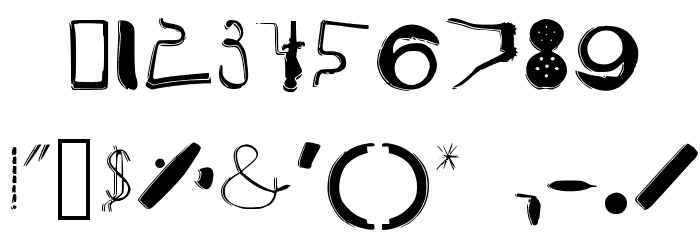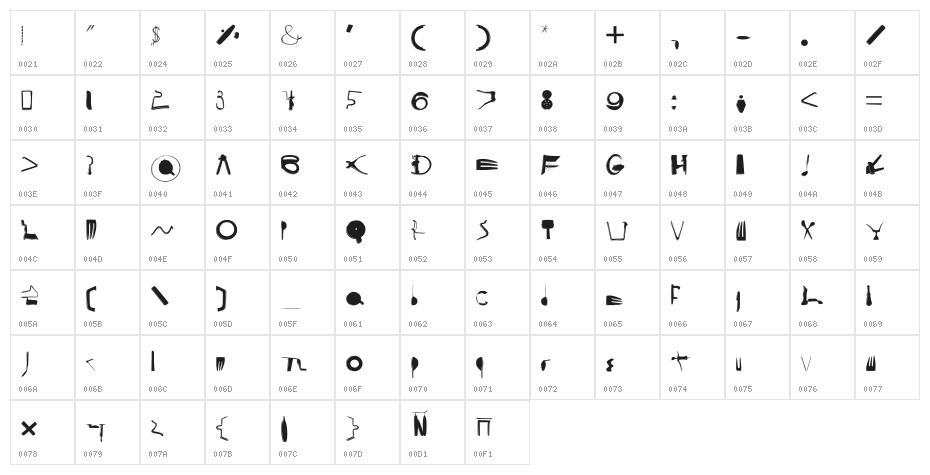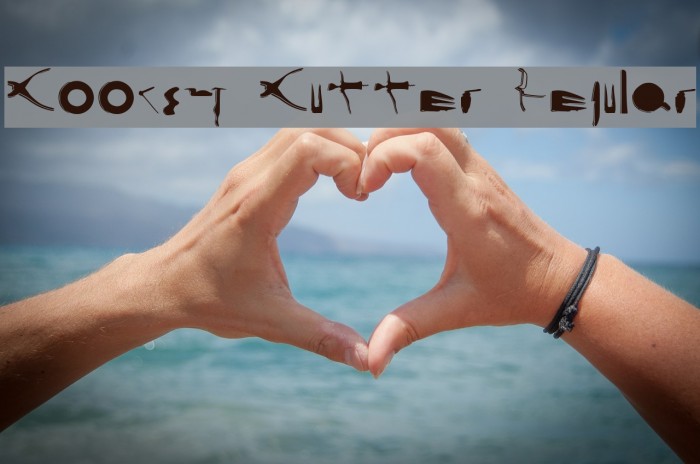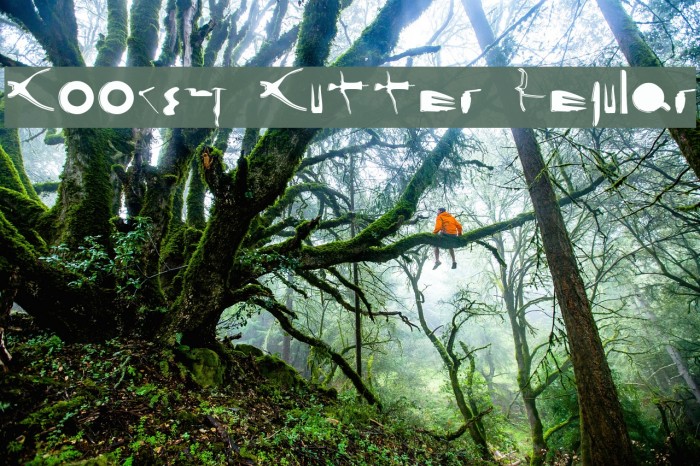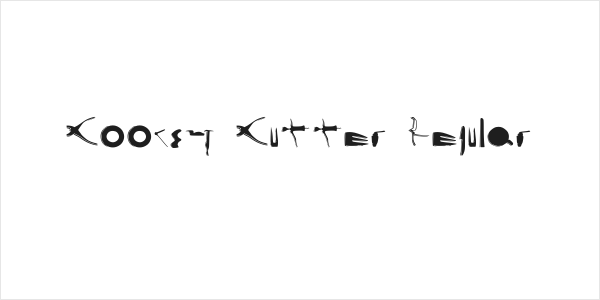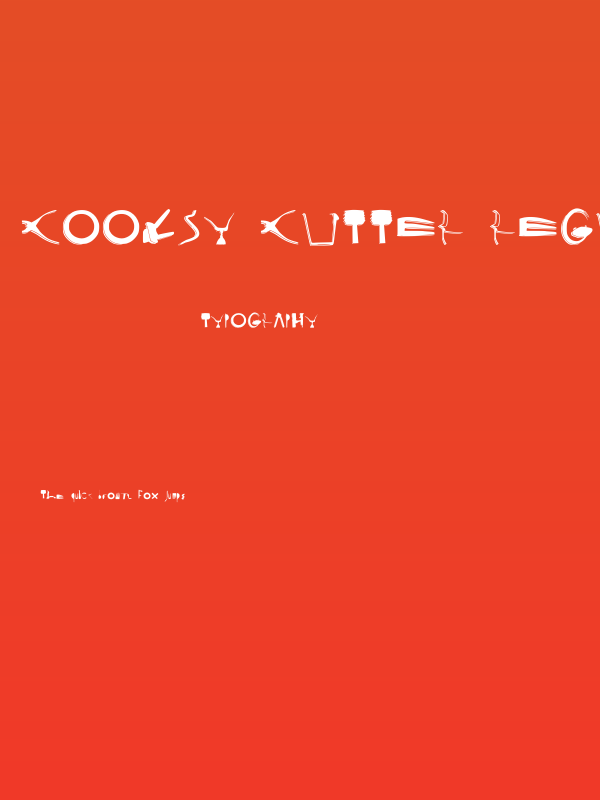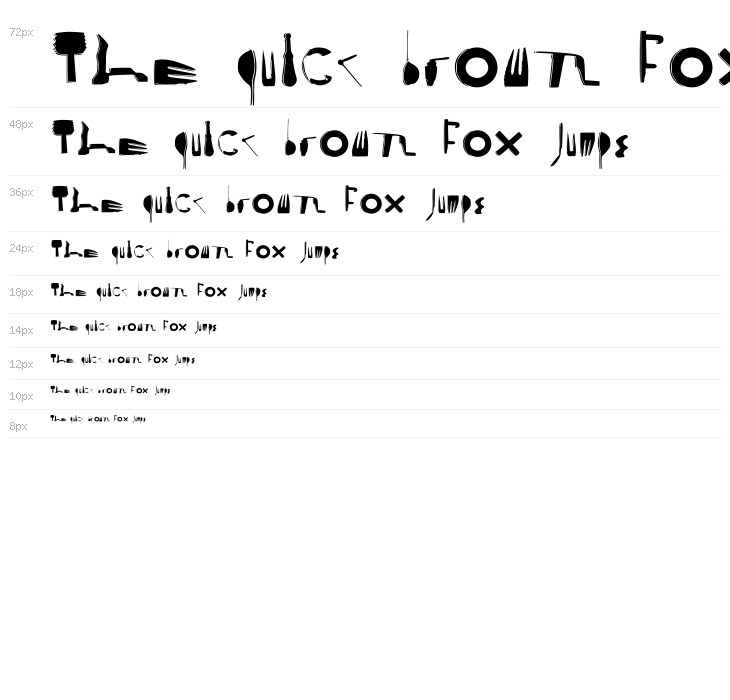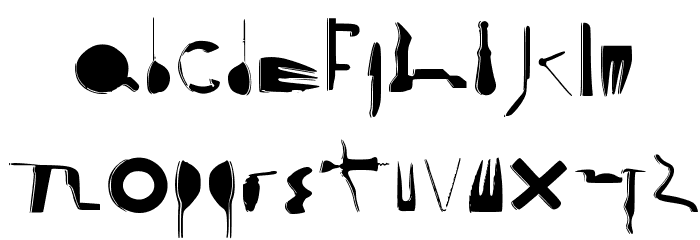
Cooksy Cutter Regular Font
Cooksy Cutter Regular Description
This font is a playful and creative design that incorporates kitchen utensils and cooking elements into each character. The letters are crafted with a unique blend of shapes resembling forks, knives, spoons, and other culinary tools, giving it a whimsical and thematic appearance. The design is bold and eye-catching, making it suitable for projects that require a fun and thematic touch. Each character is distinct, with varying thickness and intricate details that add to its decorative style. The font's overall look is both modern and artistic, perfect for culinary-themed branding or playful graphic designs.
| Use Case | Logos, Headlines, Thematic designs |
| Proposed Projects | Ideal for restaurant branding, cooking blogs, food packaging, and culinary event invitations. |